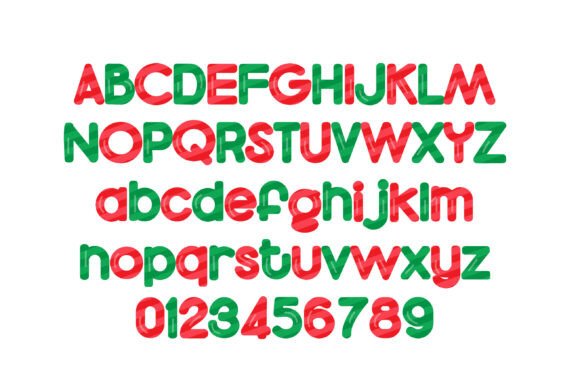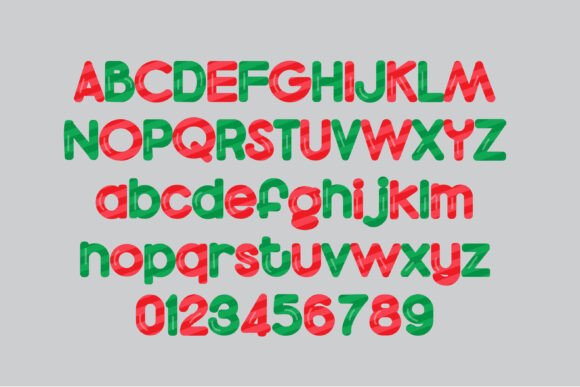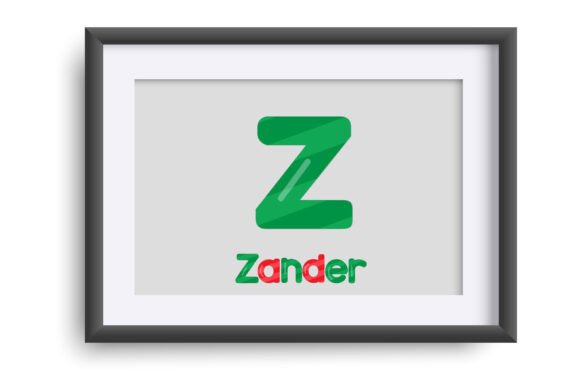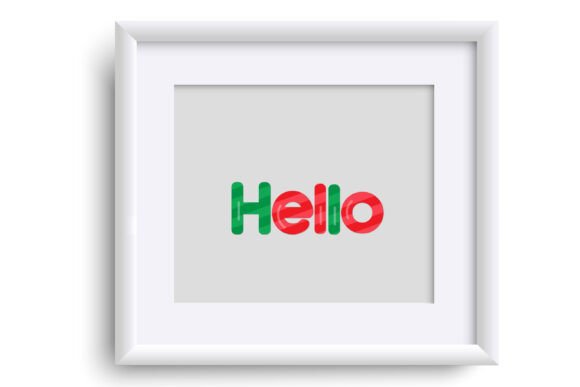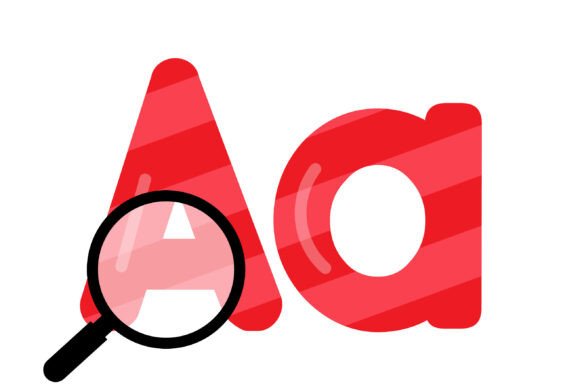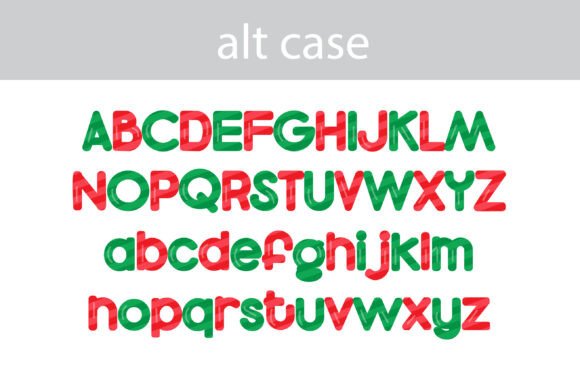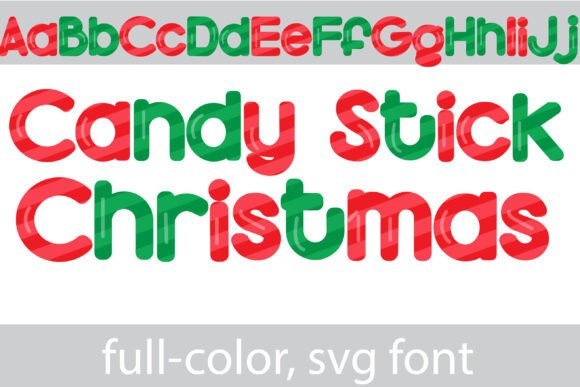
Celebrating the Magic of the Season with Colorful Fonts
There’s something special about the moment when the holiday lights are turned on, and the festive atmosphere sets in. You know, that instant when you start brainstorming ideas for your holiday marketing materials, decorations, and social media posts. It’s the perfect time to unleash your creativity and make a statement with a font that embodies the spirit of the season. Introducing the Candy Stick X-mas Font, a delightful full-color font that brings a pop of color to your designs.
This charming font features candy cane striped lettering in red and green, making it a perfect fit for titles, displays, posters, and more. As a designer, you’ll appreciate the value of this font in adding a festive touch to your projects. Plus, with its compatibility with Silhouette Studio and other design software, you can easily incorporate it into your workflow.
Candy Stick X-mas Font Key Features
- Font Family: Candy Stick X-mas Font
- Character Set: Latin, Cyrillic, Greek, and more
- Unique Characteristics: This font features a festive, hand-drawn design with a mix of bold and delicate elements, making it perfect for holiday-themed designs and projects.
Candy Stick X-mas Font Review
I recently had the chance to work with the Candy Stick X-mas Font, and I must say it’s a mixed bag. Here are my honest thoughts.
- The font has a clear and festive holiday vibe, perfect for Christmas-themed projects.
- The bold and playful characters add a nice touch to headings and titles.
- The font is well-suited for digital use, with crisp and clear typography.
- The font is quite limited in its character set, which may not be suitable for longer texts or complex layouts.
- The font’s aesthetic may be too cliche or overused for some projects, potentially detracting from the overall design.
- The font lacks versatility, making it less suitable for projects outside of the holiday season.
While the Candy Stick X-mas Font is a fun and festive addition to any holiday project, its limitations hold it back from being a truly versatile or reliable choice. If you’re looking for a quick and easy solution for your holiday designs, this font might be a good option. However, for more complex or long-term projects, you may want to consider other font options.
The Candy Stick X-mas Font is perfect for adding a festive touch to your designs, especially during the holiday season. Use it to create eye-catching titles, headings, and captions for your social media posts, blog articles, and marketing materials.
- Holiday greeting cards and invitations
- Christmas and New Year’s Eve party decorations
- Winter-themed social media posts and